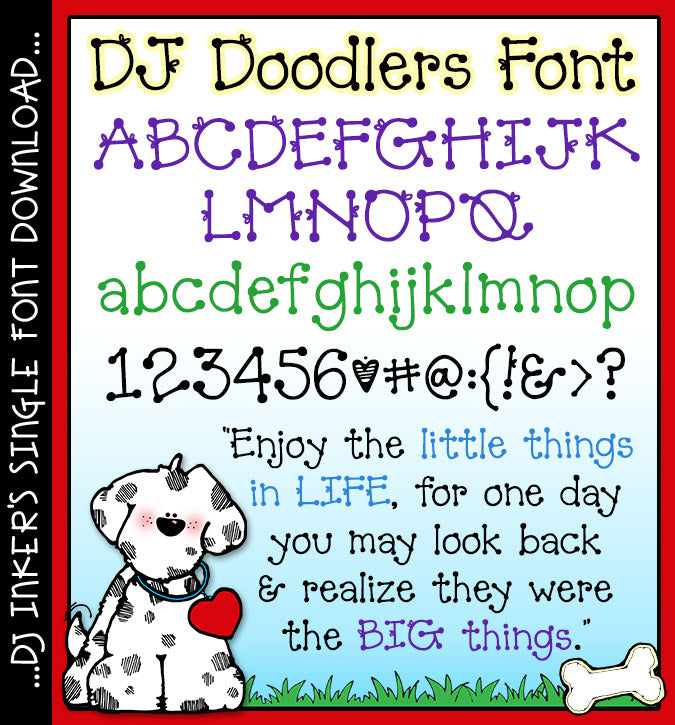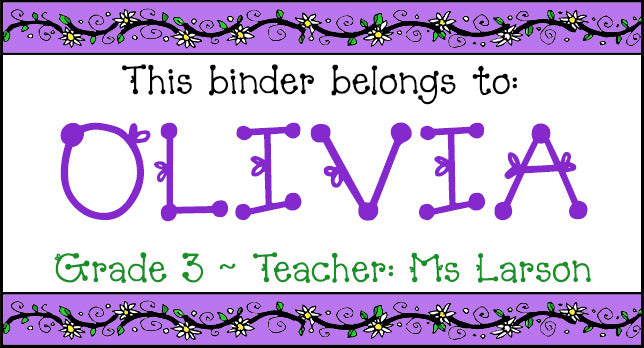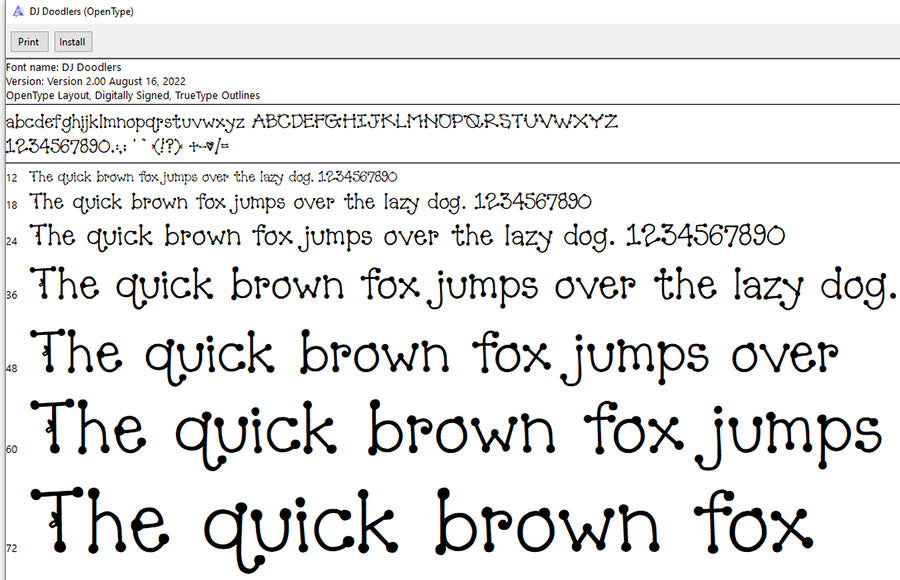
DJ Inkers' Doodlers font adds cute dot lettering to your creations
DJ Doodlers Font Download
DJ Inkers' Doodlers font adds cute dot lettering to your creations
DJ Doodlers Font Download
Add a little cute to your creations with this darling dot letter font by DJ Inkers. DJ Doodlers is a customer favorite... and a classic!  It's easy to use, easy to read and fun to type with.  Perfect for early education, home and crafting or creating something sweet.